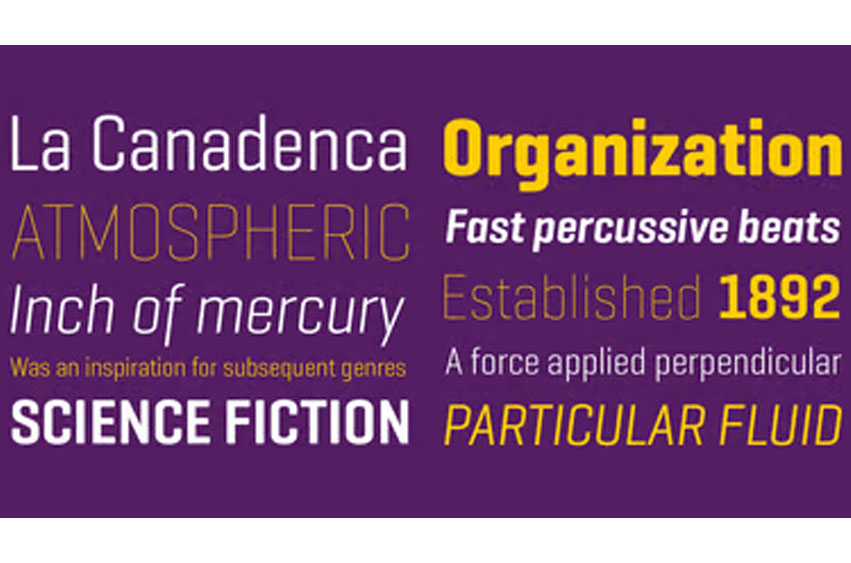
Geogrotesque Condensed Series Font
Geogrotesque Condensed Series Font The popular Geogrotesque family becomes an extended system with the inclusion of three new members to the family; Geogrotesque Condensed, Geogrotesque Compressed and Geogrotesque Extra Compressed.
The condensed series keep the spirit of the original one, and give way to a superfamily up to 56 styles. This new system fluidly varies between widths, ranging from the original width to a 55% of it in the narrower one. As their original partner, the new fonts are great headline families for publications, but will also work in text of intermediate length and point size. The Geogrotesque superfamily offers now one font for each design need.
It is available in Open Type format and includes Ligatures, Tabular Figures, Fractions, Numerators, Denominators, Superiors and Inferiors. All of them with support for Central and Eastern European languages. This type family consists of 42 styles, 7 weights plus italics in 3 widths.